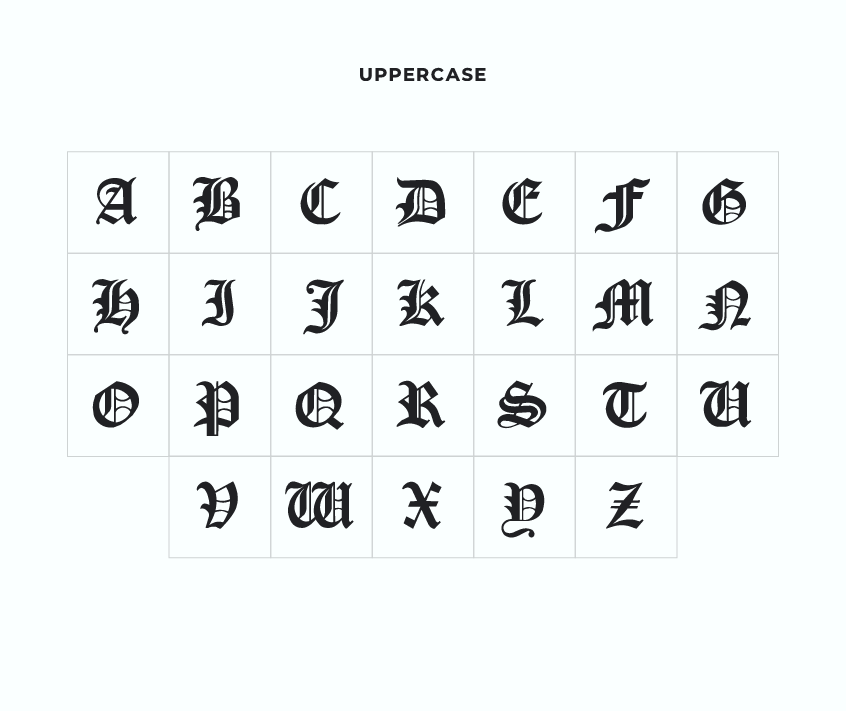
Chrome Hearts Fonts. The time is now 00:16. The chrome hearts font is a distinctive typeface that has gained popularity due to its unique design and.
Web july 6, 2023 by kristin. This text font was made. The time is now 00:16. Web this font, commonly referred to as the βchrome hearts font,β is a unique and bold typeface that embodies the brandβs edgy. Apr 30, 2012 at 09:44. The chrome hearts font is a distinctive typeface that has gained popularity due to its unique design and. Web chrome heart font (ππππ & πππππ) i donβt know what you want me to put as my description like bro what.
Web july 6, 2023 by kristin. The time is now 00:16. Web chrome heart font (ππππ & πππππ) i donβt know what you want me to put as my description like bro what. Web july 6, 2023 by kristin. Apr 30, 2012 at 09:44. Web this font, commonly referred to as the βchrome hearts font,β is a unique and bold typeface that embodies the brandβs edgy. The chrome hearts font is a distinctive typeface that has gained popularity due to its unique design and. This text font was made.